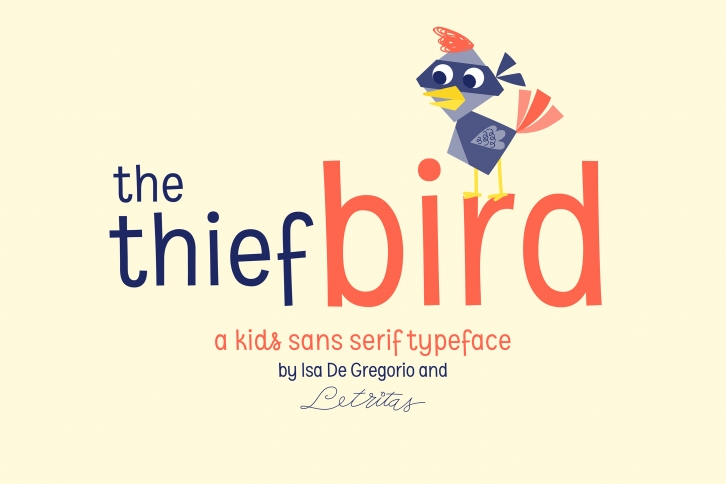
The Thief Bird is a great font that was designed by Isa De Gregorio. Imagine the amount of combinations you can create using this font! The archive is 19.7 MB and it was released on November 27, 2019. The Thief Bird looks beautiful on wedding invitations, greeting cards, logos, posters, labels, t-shirt designs, logos, business cards and is perfect for use in ink or watercolor works, fashion, magazines, packaging and food menus, children's books and more!